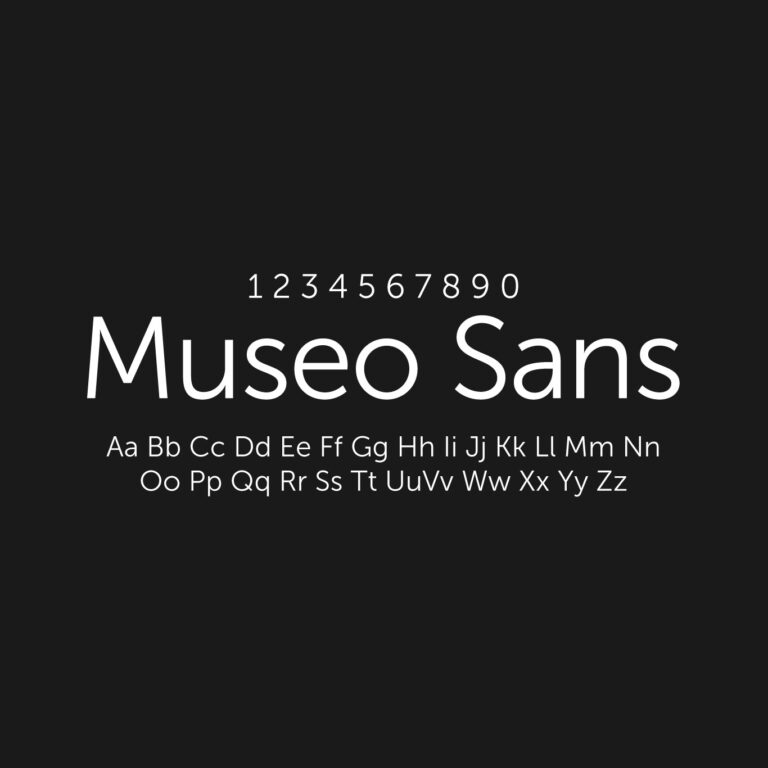
Museo Sans is a clean sans-serif companion to the original Museo typeface. It keeps the friendly and distinctive character of the Museo family while offering a simpler, more neutral structure for everyday typography. Its open letterforms, balanced proportions, and readable design make it useful across both digital and print layouts.
This package also includes Museo Sans Rounded styles. These rounded versions soften the overall appearance of the typeface, making them useful for friendlier brand identities, app interfaces, lifestyle projects, packaging, children’s products, casual visuals, and approachable digital design systems.
Designer: Jos Buivenga
Foundry: exljbris Font Foundry
Fonts similar to Museo Sans include Museo, Museo Slab, Avenir, Proxima Nova, Myriad Pro, Gill Sans, Frutiger, Open Sans, Nunito Sans, and other clean humanist or rounded sans-serif typefaces. These alternatives can be useful for branding, UI design, editorial layouts, websites, posters, and approachable digital typography.